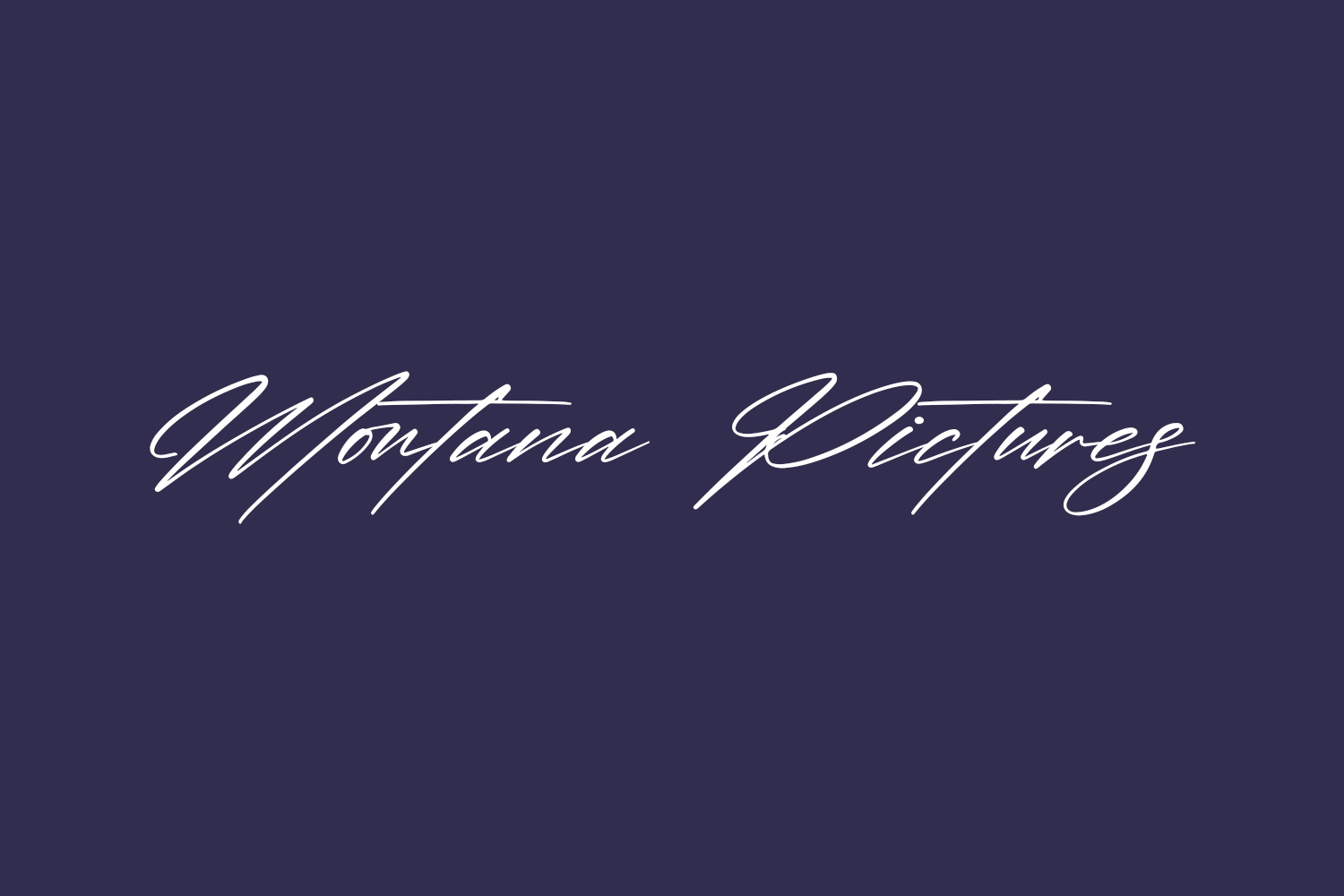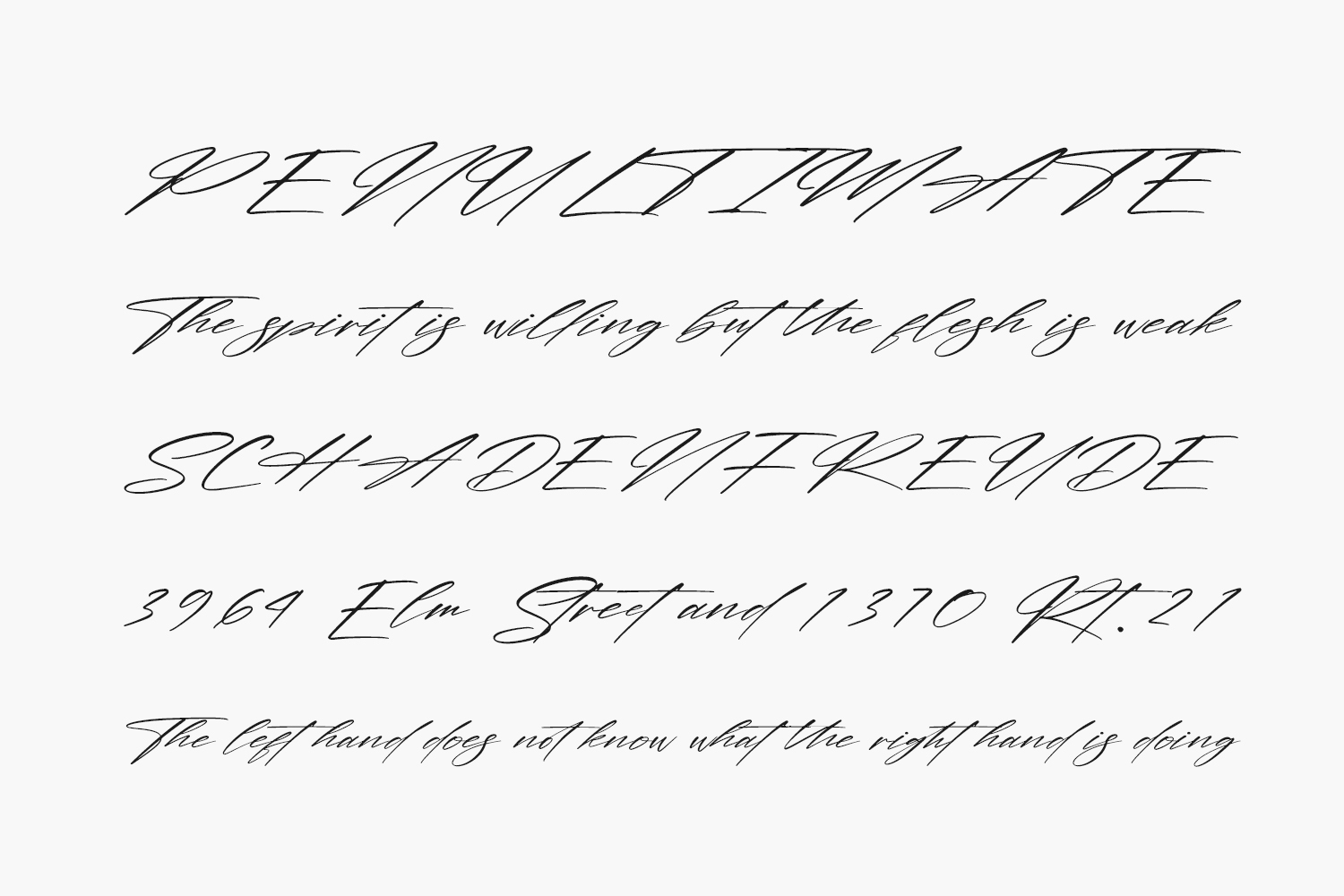
Montana Pictures Free Font is a stylish and timeless handwritten font. It is the best choice for creating eye catching logos, branding and quotes. Montana Pictures Free Font was designed by Letterena Studios and is free for personal use only. Please purchase the full version for commercial use.